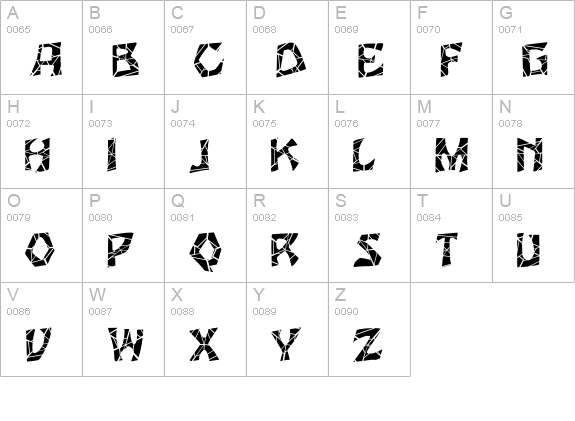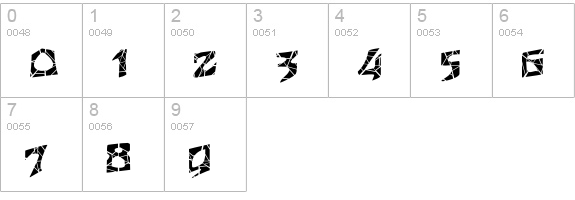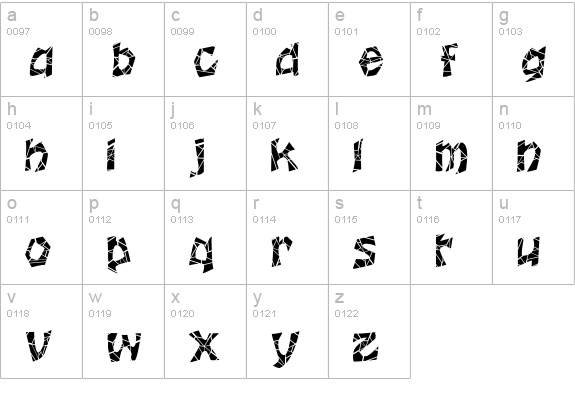
FZ JAZZY 12 CRACKED Font Details
Introducing FZ JAZZY 12 CRACKED font, a unique and eye-catching typeface that adds a touch of creativity and personality to any design project. This font features a cracked effect that gives it a distinct and edgy look, perfect for making a bold statement. FZ JAZZY 12 CRACKED font is freely available to download at FontsMarket.com, making it easily accessible for designers looking to add a touch of flair to their work. Whether you're working on a poster, logo, website, or any other creative project, this font is sure to make a lasting impression. With its cracked texture and stylish design, FZ JAZZY 12 CRACKED font is versatile and can be used in a variety of design applications. Stand out from the crowd and give your projects a unique and modern feel with this free-to-download font.